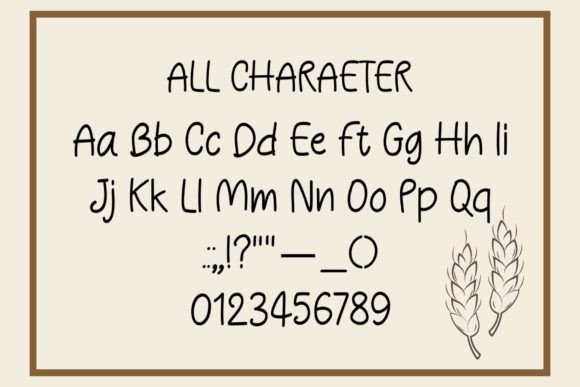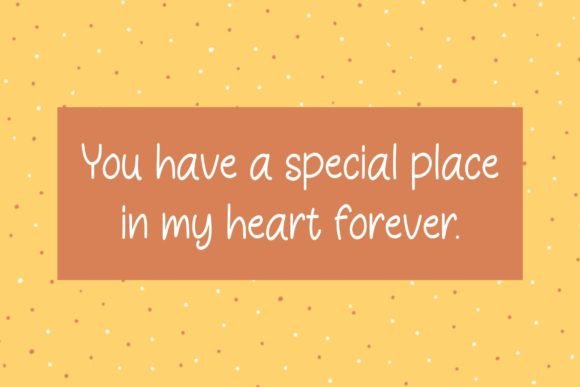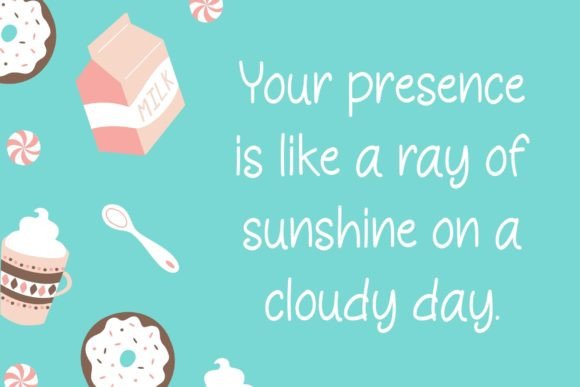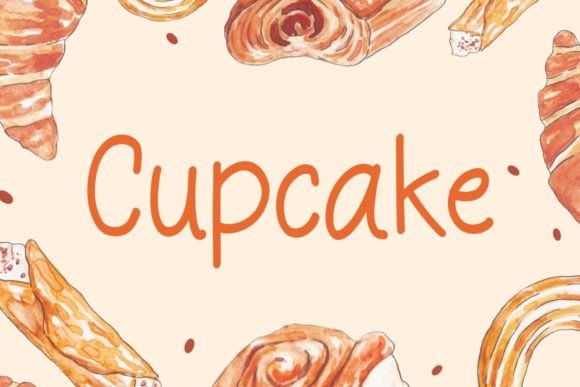
The Sweetest Typography: Introducing Cupcake Font
Have you ever sat at your desk, surrounded by scraps of paper, design software open, and a blank page staring back at you? The creative juices are flowing, but that one perfect font is eluding you. That’s where the magic of Cupcake Font comes in – a charming and whimsical typeface designed to add a touch of sweetness to your designs.
Cupcake Font is the perfect choice for any project that needs a dash of joy and celebration. Its playful curves and delectable letterforms will make your words look as enticing as freshly baked cupcakes. Whether you’re designing a bakery logo or crafting a menu for a dessert café, Cupcake Font is sure to bring a smile to your audience’s face.
- Unique Characteristics: The Cupcake Font features a unique, hand-drawn design with a whimsical and playful feel, making it perfect for creative and artistic projects.
Cupcake Font Review
I’ve had the chance to work with the Cupcake Font, and here’s my honest take on it.
The Cupcake Font is undeniably cute and playful, making it perfect for baking-themed designs or any project that needs a touch of whimsy.
- Unique character set with creative flourishes
- Consistent line width and spacing throughout the font
- Available in a variety of font weights and styles
Limited by… ⚠️
While the Cupcake Font is charming, it may not be the best choice for serious or formal designs.
- Limited to a single script font style
- No support for Cyrillic or other non-Latin scripts
- May not be suitable for very small or large text sizes
The Cupcake Font is a delightful addition to any designer’s toolkit, but it’s best suited for projects where its playful, baking-themed charm can shine.
For best results, use the Cupcake Font for headings and titles to add a playful touch to your design.
For best results, use the Cupcake Font in conjunction with bold lines and bright colors to create a whimsical design.
For best results, use the Cupcake Font for headings and titles to add a touch of personality to your presentation or document.
Tips for Getting the Most Out of the Cupcake Font
Use the Cupcake Font in moderation to avoid overwhelming your design.
Pair the Cupcake Font with bold lines and bright colors to create a playful design.
Use the Cupcake Font for headings and titles to add a touch of personality to your design.
The Cupcake Font is ideal for:
- Birthday invitations and party decorations.
- Food and dessert branding.
- Children’s books and educational materials.
Alternatives to “Cupcake Font” for Designers
Cupid Script
Cupid Script is a beautiful, cursive font that resembles a handwritten love letter. It’s perfect for adding a touch of romance to your designs, especially in wedding invitations, greeting cards, or any other project that requires a whimsical feel.
Compared to Cupcake Font, Cupid Script has a more elegant and sophisticated look, making it ideal for formal events or special occasions. While Cupcake Font has a more playful, bubbly feel, Cupid Script is better suited for those who want a more refined and classic look.
Great Vibes is a modern, handwritten font that’s perfect for designers who want to add a touch of personality to their projects. It’s great for social media posts, advertising, or any other design that requires a fun and energetic feel.
Compared to Cupcake Font, Great Vibes has a more casual and laid-back vibe, making it ideal for designs that require a relaxed and approachable tone. While Cupcake Font has a more childlike and playful feel, Great Vibes is better suited for designs that require a more mature and sophisticated look.